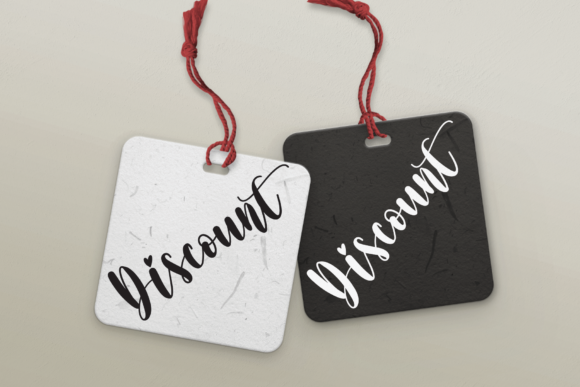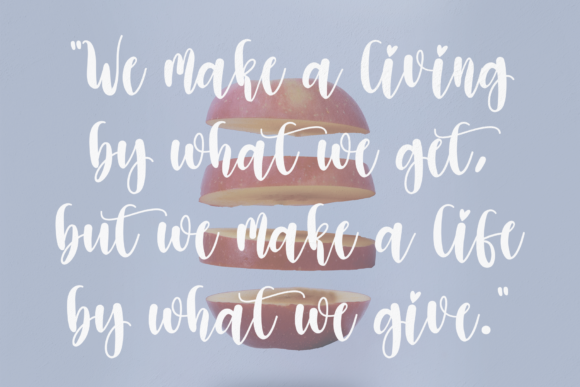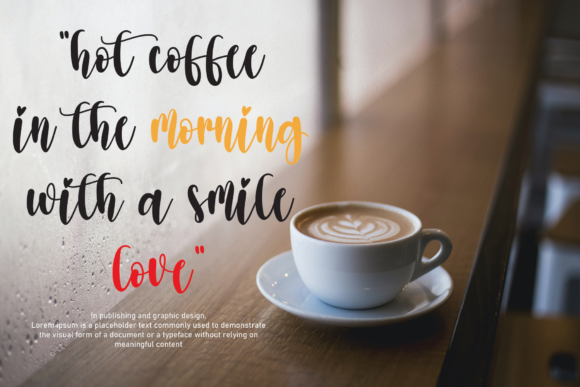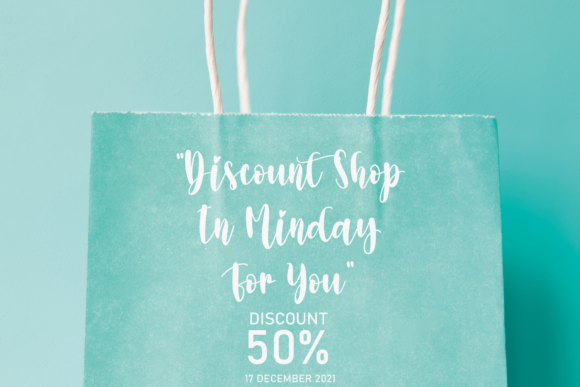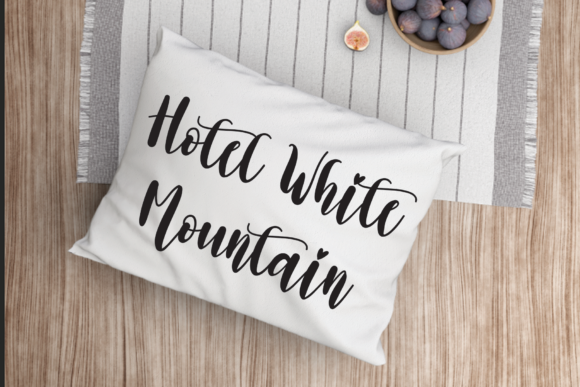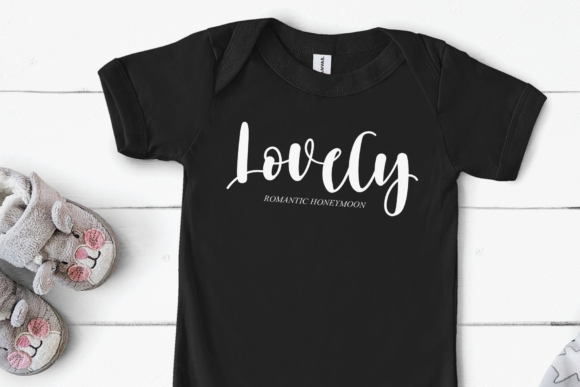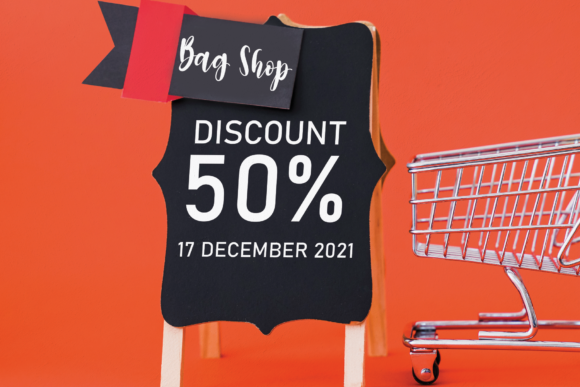
Storybook Font
About Storybook Font
Storybook is a lovely and timeless handwritten font. It is the best choice for creating eye catching logos, branding and quotes. Every letter has a unique and beautiful touch, which will make your design come alive!